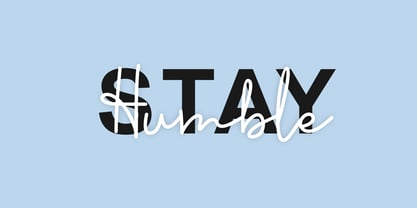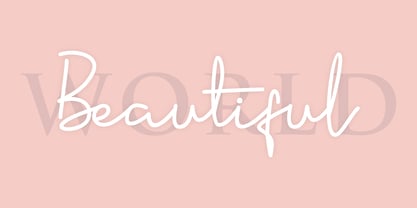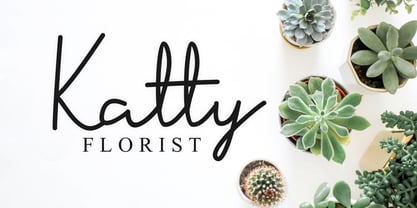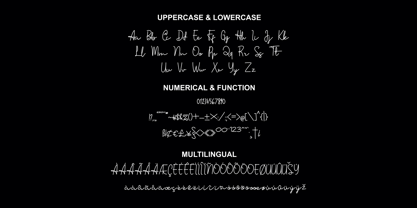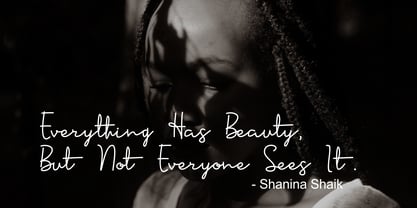
Sennita Font
Sennita Signature Script - a new modern & script style make this font looks elegant, natural, stylish and perfect for any awesome projects that need handwriting taste.